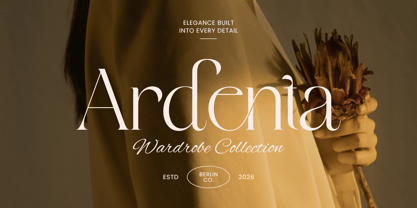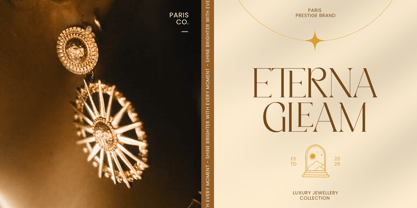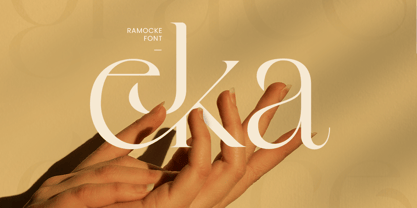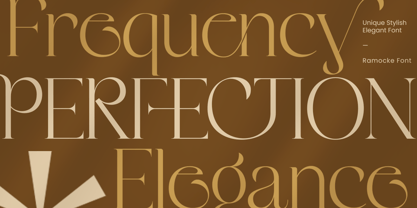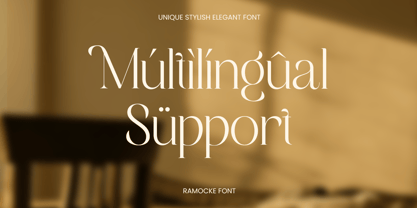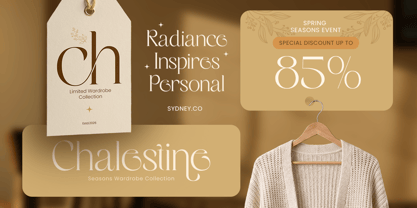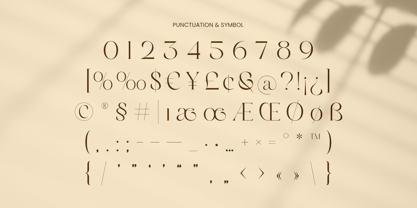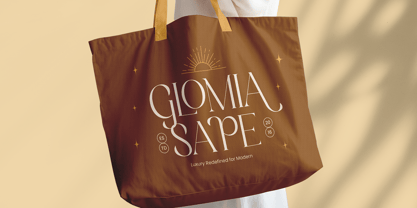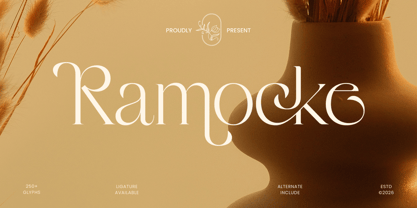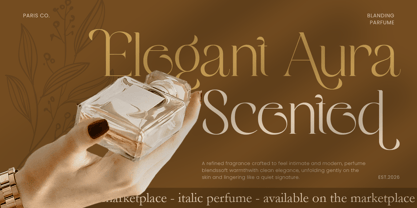
Ramocke is a unique stylish elegant font crafted to deliver a refined, premium look with distinctive personality. With polished letterforms and a balanced modern rhythm, this typeface creates an upscale visual tone that feels classy, confident, and instantly brand-ready.
Designed for high-end typography, Ramocke works beautifully across logos, wordmarks, brand identity systems, website headers, editorials, packaging, labels, invitations, signage, presentations, and modern marketing visuals. Its stylish structure keeps layouts clean and readable while adding an elegant flair that elevates both digital and print design.
Whether you’re building a fashion identity, creating beauty branding, designing premium packaging, or crafting an editorial layout with modern sophistication, Ramocke provides a unique elegant foundation that makes your typography feel polished, memorable, and unmistakably premium.
Inspiration Behind Ramocke
Ramocke is inspired by contemporary luxury branding and modern editorial typography—where elegance meets personality and clean structure builds confidence. The design focuses on refined proportions and stylish visual rhythm to support premium identities with a chic, modern presence.
Ramocke Font Features:
Unique stylish letterforms with elegant, premium character
Perfect for logos, branding systems, and modern editorial headlines
Clean structure for refined layouts and strong readability
Uppercase, lowercase, numerals, and punctuation included
OpenType features for polished professional typesetting
Perfect For
Logos, wordmarks, and premium brand identity systems
Fashion, beauty, skincare, fragrance, and boutique branding
Editorial layouts, magazine covers, lookbooks, and headlines
Premium packaging, labels, invitations, and elegant stationery
Social media campaigns, websites, presentations, and marketing assets
Elevate your visuals with Ramocke—a unique stylish elegant font made for premium branding with modern sophistication. ✨